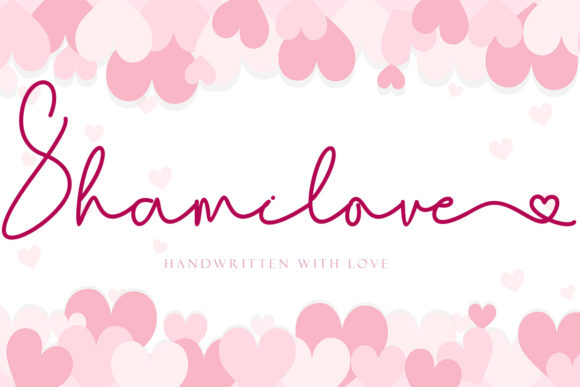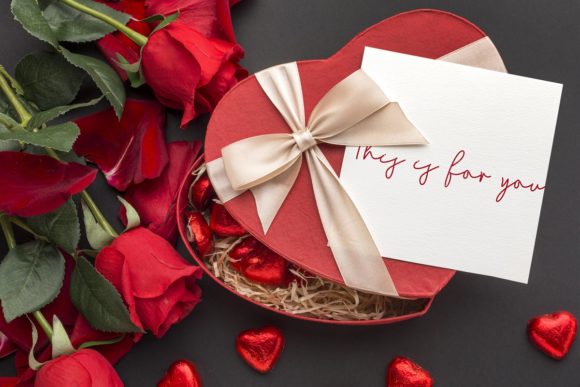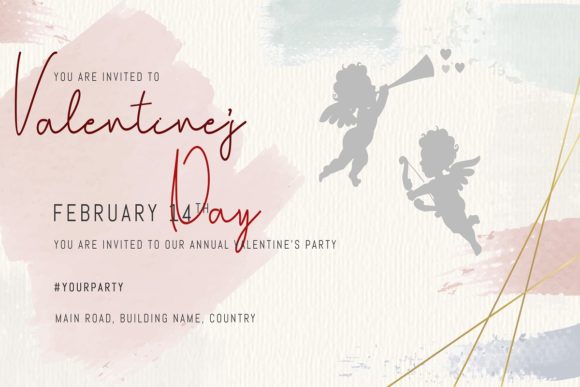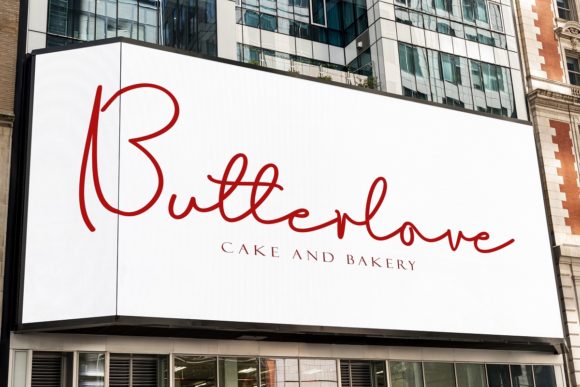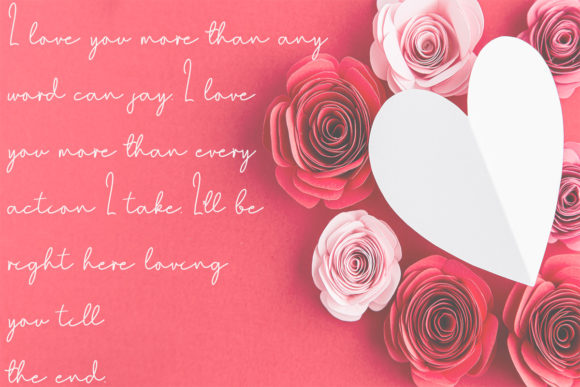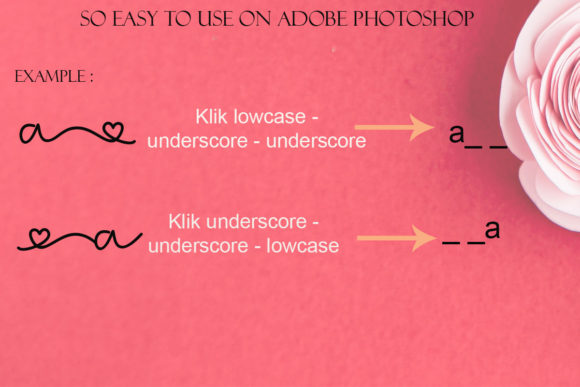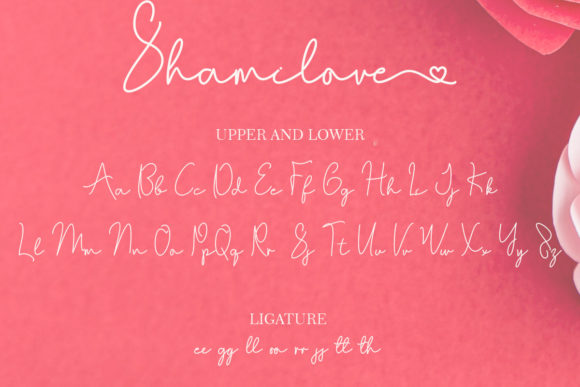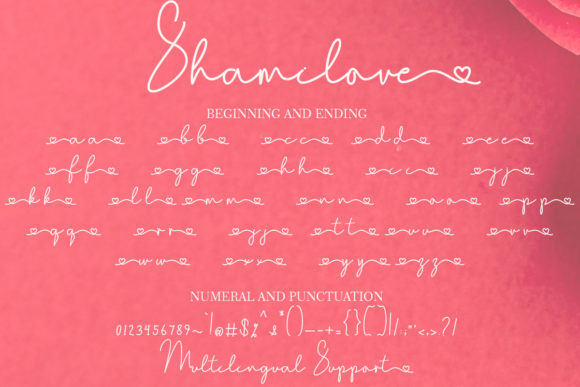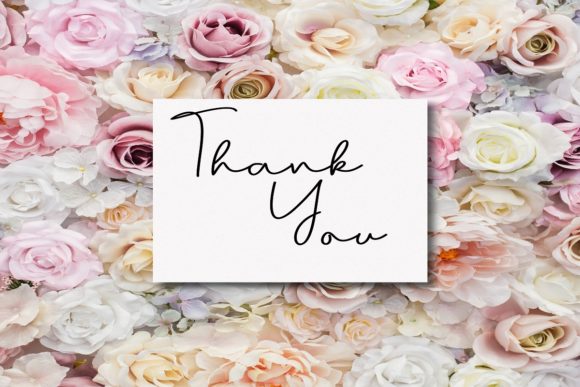
Shamilove Font
About Shamilove Font
Shamilove is an exquisite and romantic font that adds a touch of elegance and charm to any design. With its delicate and graceful letterforms, it is perfect for creating personalized and heartfelt designs, particularly for occasions like weddings, thank you cards, and special events.
The beauty of Shamilove lies in its intricate details and refined style. Each letter is carefully crafted to evoke a sense of romance and sophistication, making it ideal for projects that require a personalized touch. Whether you’re designing wedding invitations, creating heartfelt greeting cards, or crafting a logo with a romantic flair, Shamilove is sure to leave a lasting impression.
One of the notable features of Shamilove is its PUA encoding, which allows you to access a wide range of alternate glyphs and swashes effortlessly. This gives you the flexibility to customize and embellish your designs, adding extra flourishes and decorative elements to make them truly unique. The availability of various swashes and alternate characters allows you to experiment and create beautiful combinations that reflect your individual style.
Shamilove’s versatility extends beyond wedding-related designs. It can be used for a variety of projects, including branding, social media graphics, packaging, and more. Its timeless appeal and romantic aura make it suitable for a wide range of applications where a touch of elegance is desired.
The legibility of Shamilove ensures that your messages are conveyed clearly and effectively. Each letter is designed to be easily readable, even at different sizes or in intricate compositions. This ensures that your designs not only look beautiful but also communicate effectively to your audience.
In summary, Shamilove is a stunning and romantic font that brings a touch of elegance and sophistication to your designs. Its PUA encoding provides access to a wide range of alternate glyphs and swashes, allowing you to customize and enhance your designs. Whether you’re creating wedding invitations, heartfelt cards, or branding materials, Shamilove is the perfect choice to add a personalized and romantic touch.